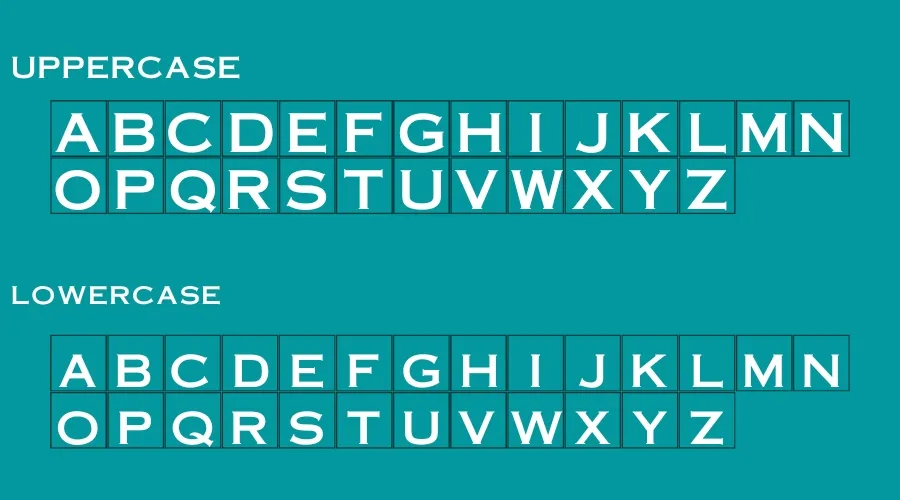
Copperplate Font
About Copperplate Font
The Copperplate font is a famous typography style and is under the category of the gothic serif family. It was invented by Frederic W. Goudy and the owner of this font is ATF. This good-looking texture was published through URW Type Foundry.
This typeface includes 6 different styles with a choice of family packages. It consists of different types of characters such as small letters, capital letters, numerals, punctuation, signs, and symbols.
This font is ideal for making noticeable schemes. The copperplate style has neat and attractive structures that will give your project a more awesome look.
The Copperplate font has an engaging style and great spacing that may be utilized in essential projects. It has great qualities and methods that can be applied to famous websites. It is ideal for gothic serif projects. It can be utilized in any kind of screen design whether it’s a little screen or a big screen project.
This font may be used for logo designs, films, movies, t-shirts, signs, flags, publications, textbooks, tags, formats, headlines, invitation cards, newspapers, visual designs, video plays, and handwriting designs.
Also, It is suitable for CSS, Adobe Photoshop, Illustrator, and Canvas. Most designers utilize it for web designing and app expansion because it includes some international languages such as English, Latin,  and many others.
Name Copperplate Font
Designer Frederic W. Goudy
Style Gothic
What is copperplate font used for?
The Copperplate style usually utilizes for email templates, social media marketing, logo design, Instagram bio description, and many other projects.
Is Copperplate a good font?
Yes! It is a good and attractive font with a unique texture look appearance. You must have to use it on your projects.